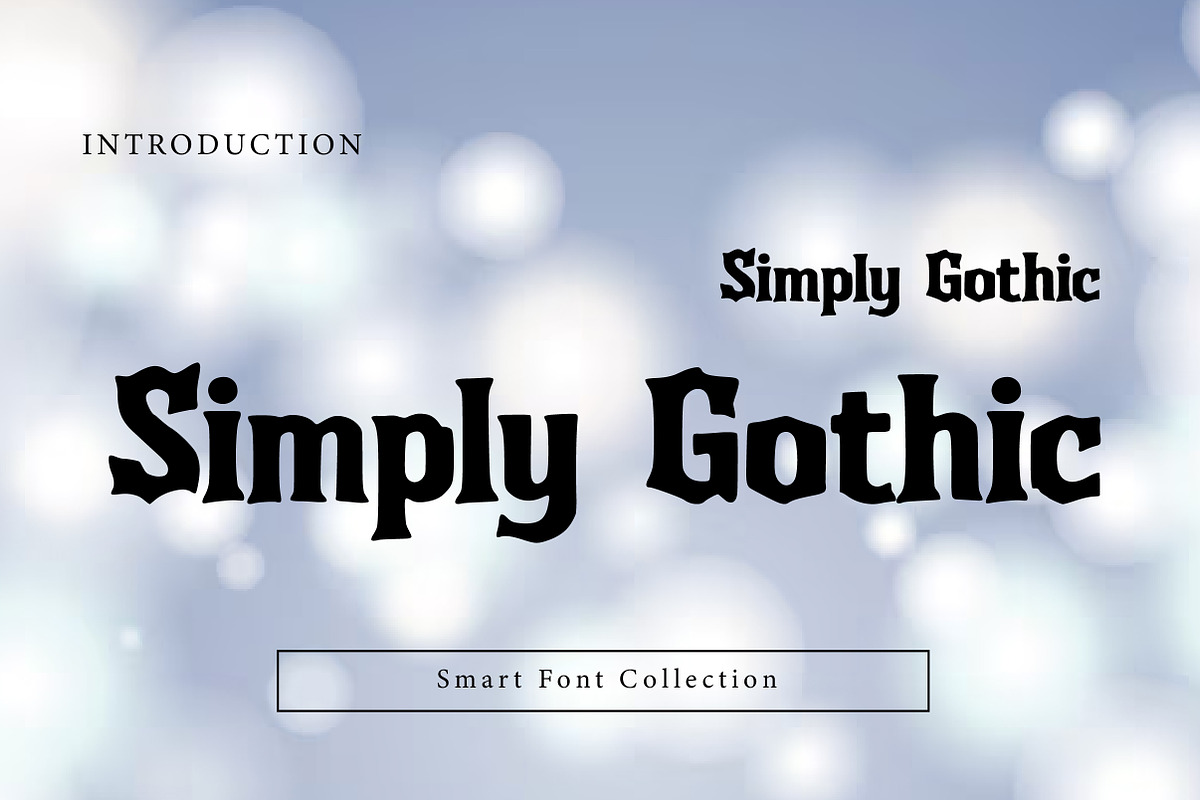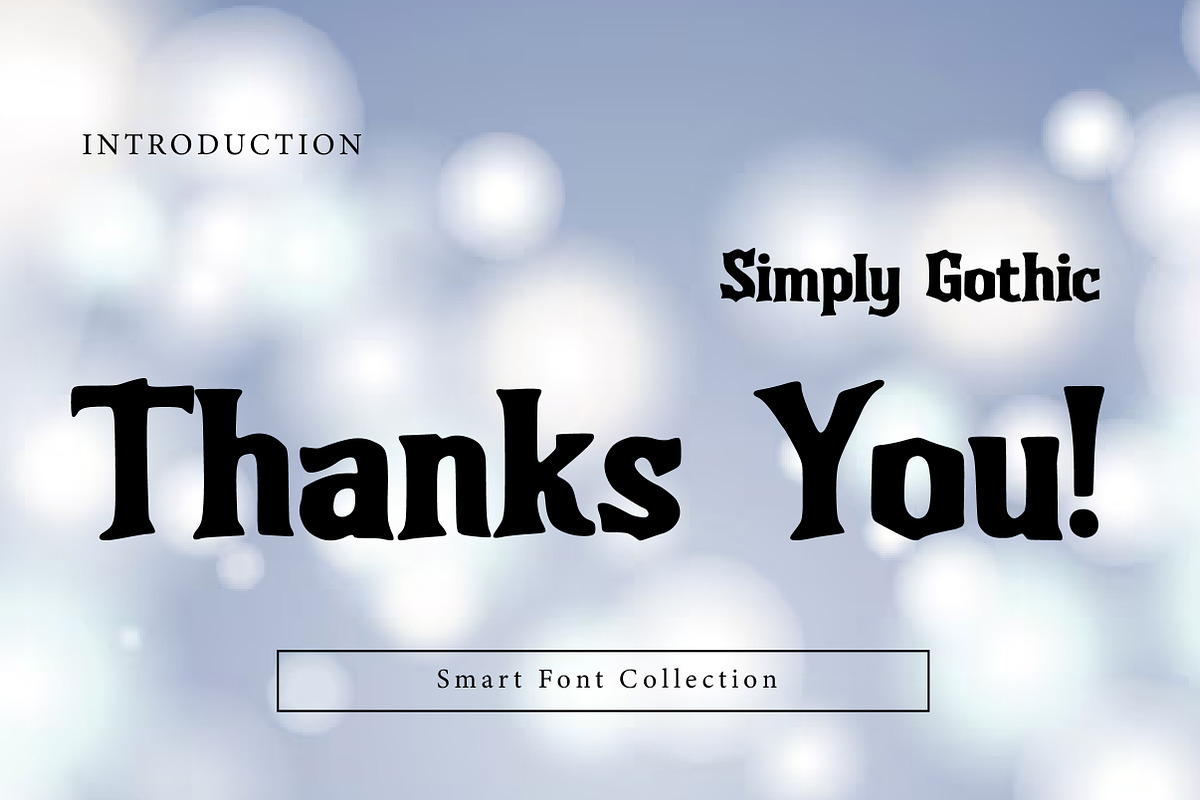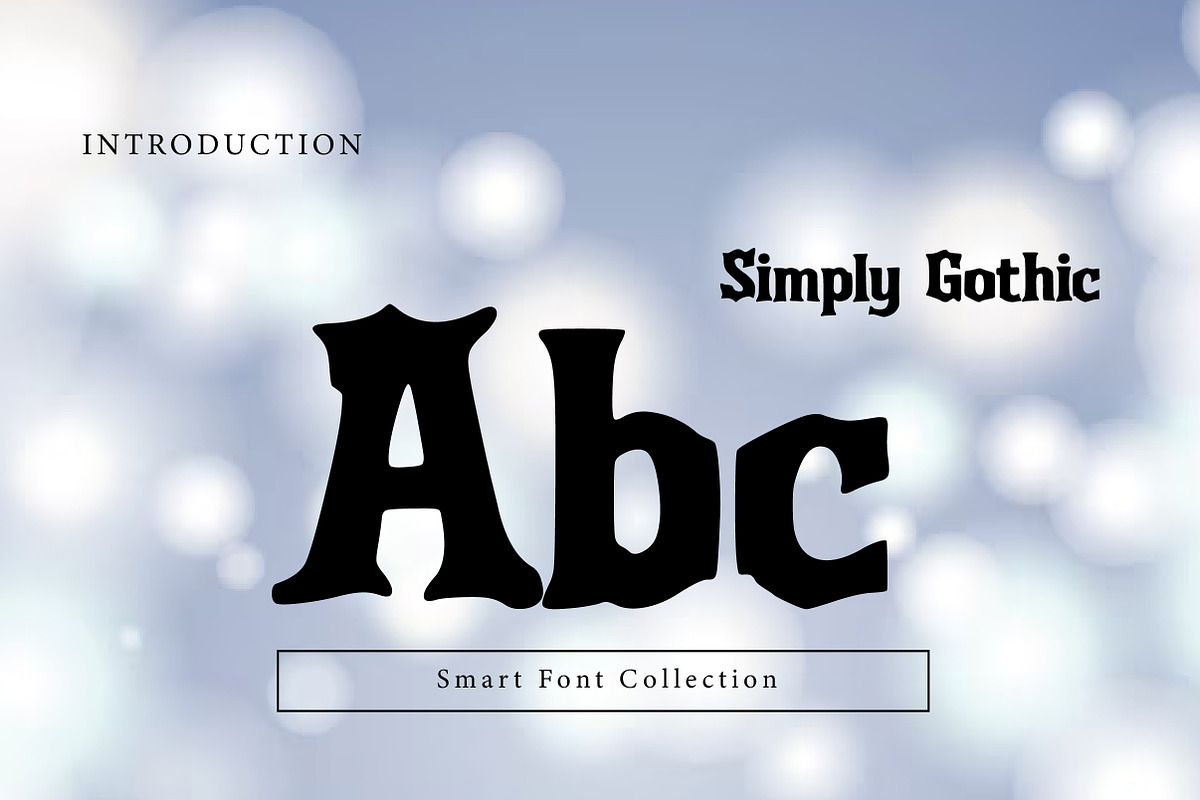
Simply Gothic
Simply Gothic is a bold gothic display font with sharp corners, pointed terminals, and a clean blackletter-inspired structure. It keeps the dramatic Gothic attitude while staying relatively simple and readable, making it perfect for logos, posters, headlines, book covers, packaging, band artwork, tattoo-style designs, and Halloween or dark-themed branding. Simply Gothic delivers classic Gothic power with modern usability.